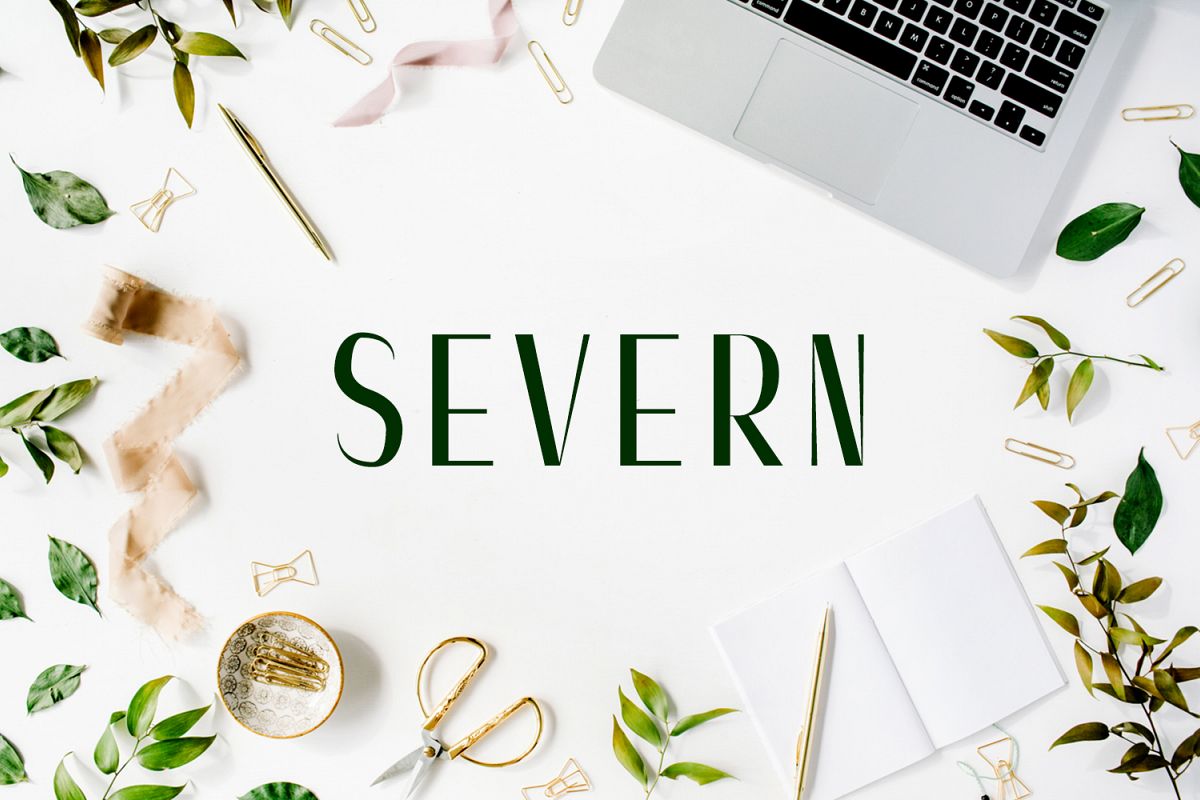
Severn Sans Serif Font Family
Severn Sans Serif Font Family is a set of 6 weights font family. It is good for making creative templates and stationary. It typeface suits best for modern / clean designs, logos, headlines, banners and templates etc.It looks gorgeous in all caps with a wide-set spacing if you want to try a classy look, or beautiful on its own in capital and lowercase letters for something completely timeless.Included Features:
• Regular, Light, Thin and Bold Weights
• Extras: Uppercase Multilingual Letters, Lowercase Multilingual Letters, Numbers & Punctuation + Alternatives.
Highlights
• Severn is a highly versatile Font Family Pack.
• Includes 4 weights
• The perfect choice for Modern, Fashion & Magazine Titles.
• Great for use on quotes, short phrases, magazines, logotypes and all sorts of advertising.